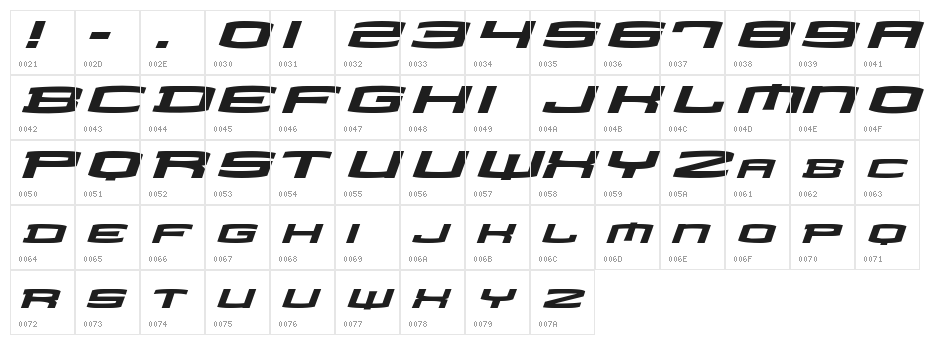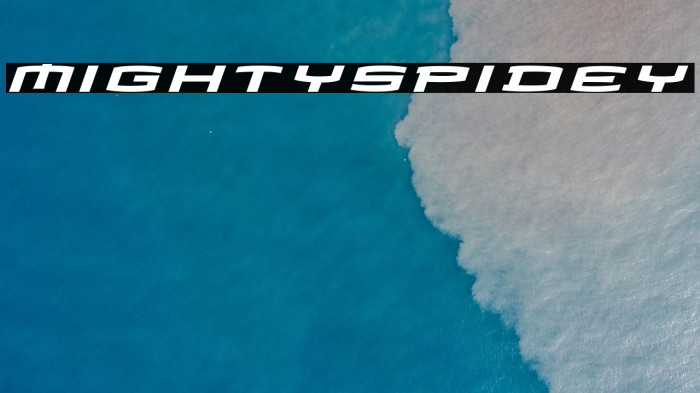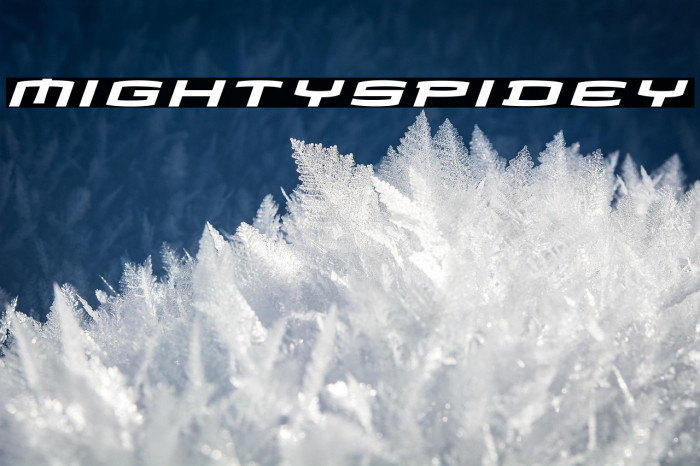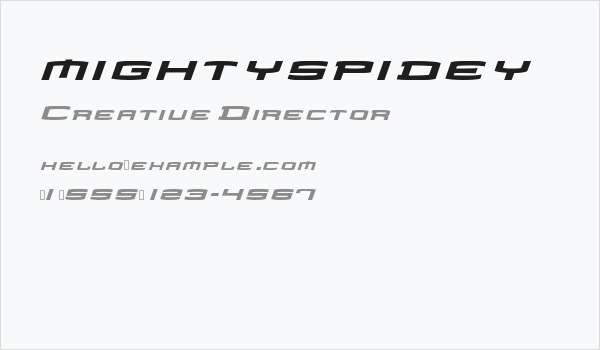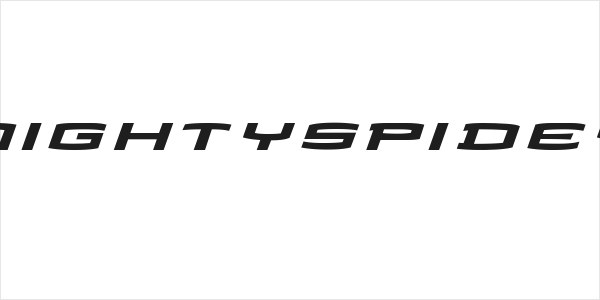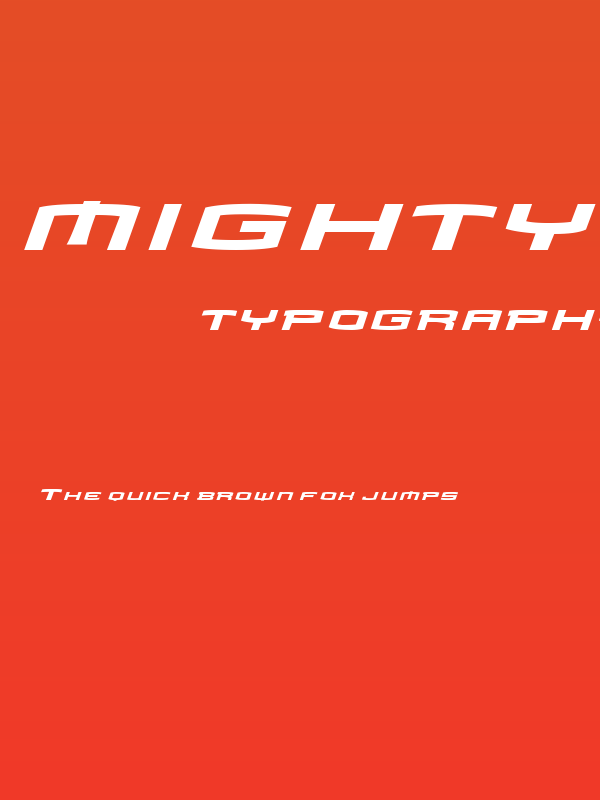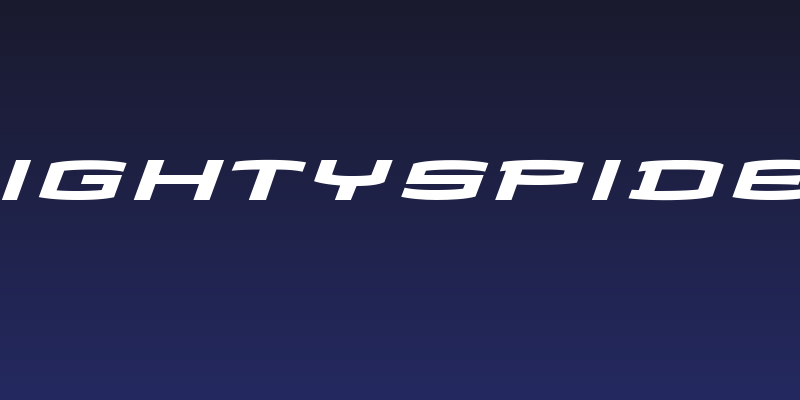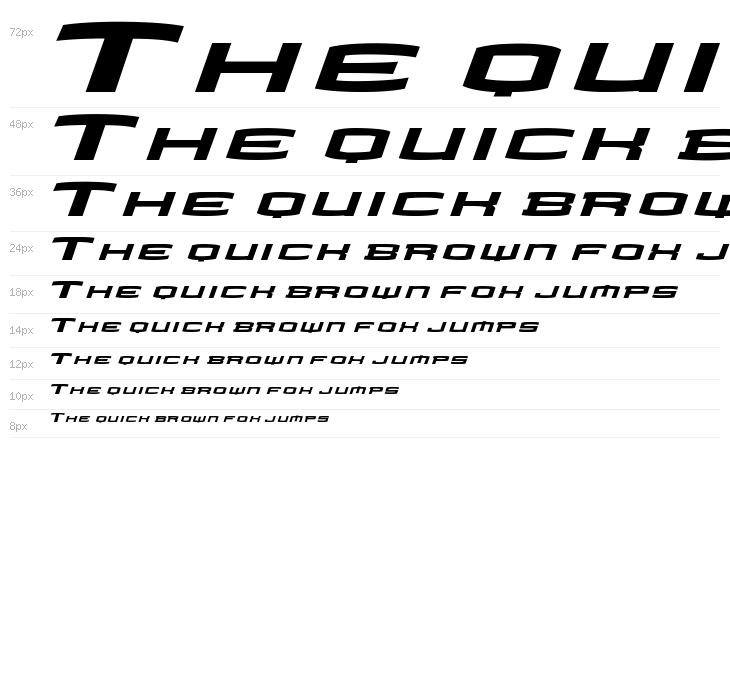
mightyspidey Font
mightyspidey Description
This font features a sleek, modern design with a futuristic flair. The characters are slightly italicized, giving a sense of motion and dynamism. The angular edges and sharp lines contribute to a tech-inspired aesthetic, making it ideal for projects that require a cutting-edge look. The uppercase and lowercase letters maintain a consistent style, with a slight slant that enhances readability while adding a unique character. The numerals and special characters are designed to match the overall theme, ensuring uniformity across all text elements. The font's bold appearance makes it suitable for headlines and titles, where impact and clarity are crucial.